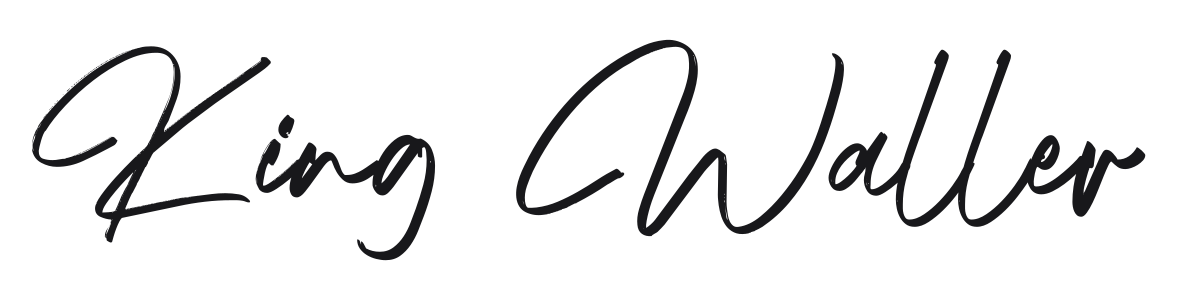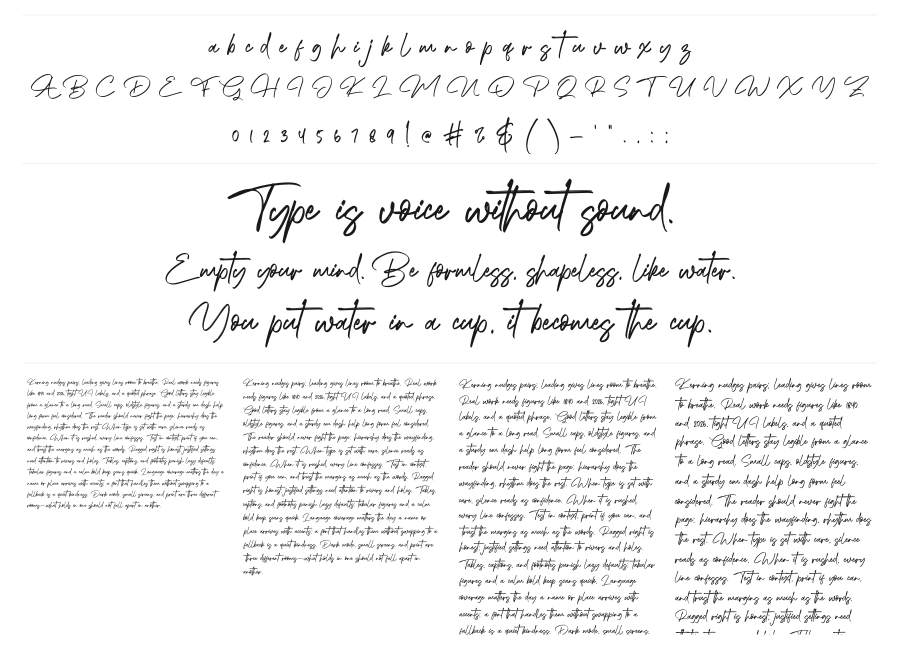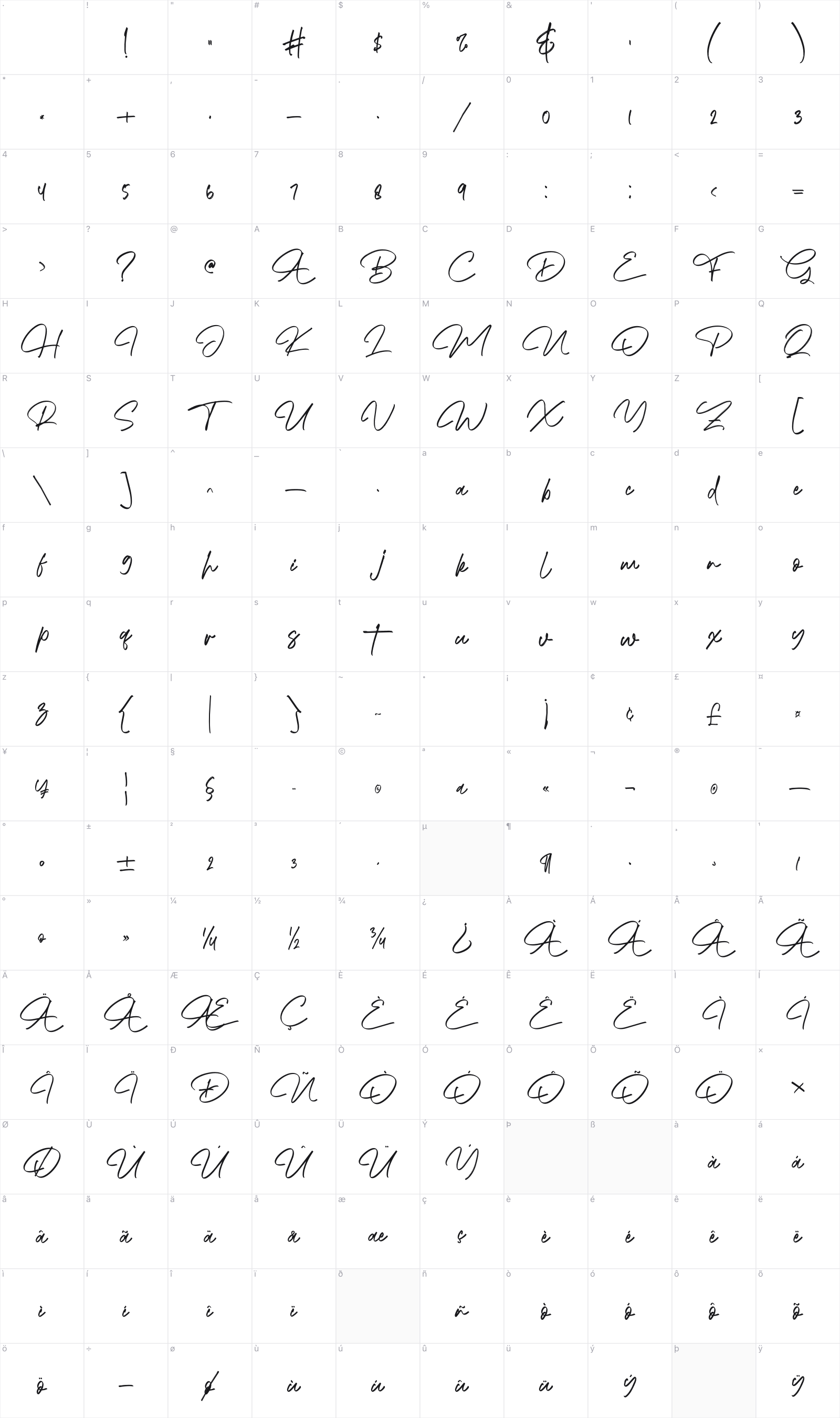
King Waller
King Waller is a contemporary brush script with loose, ink-textured strokes and a natural hand-lettered energy. The flowing connections and expressive baseline variation give it an authentic feel that sits somewhere between a quick signature and deliberate calligraphy. It works best at large sizes where the brush texture stays visible.